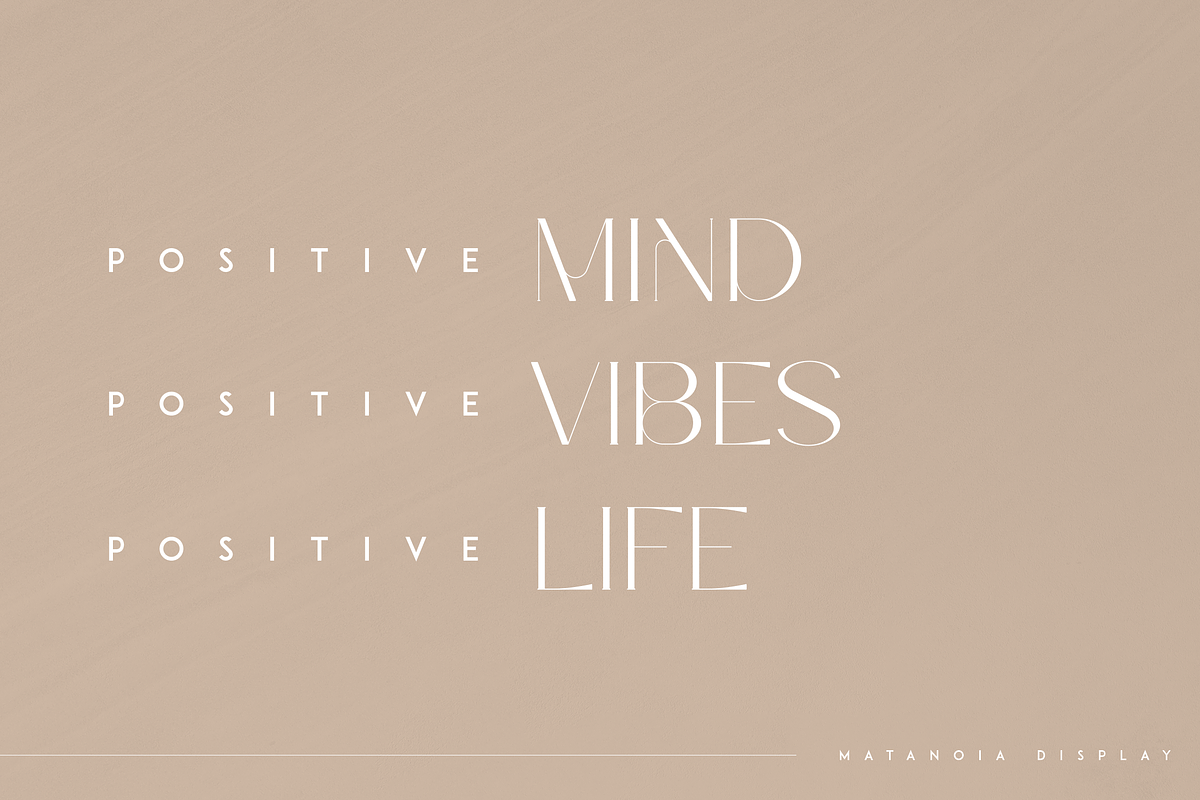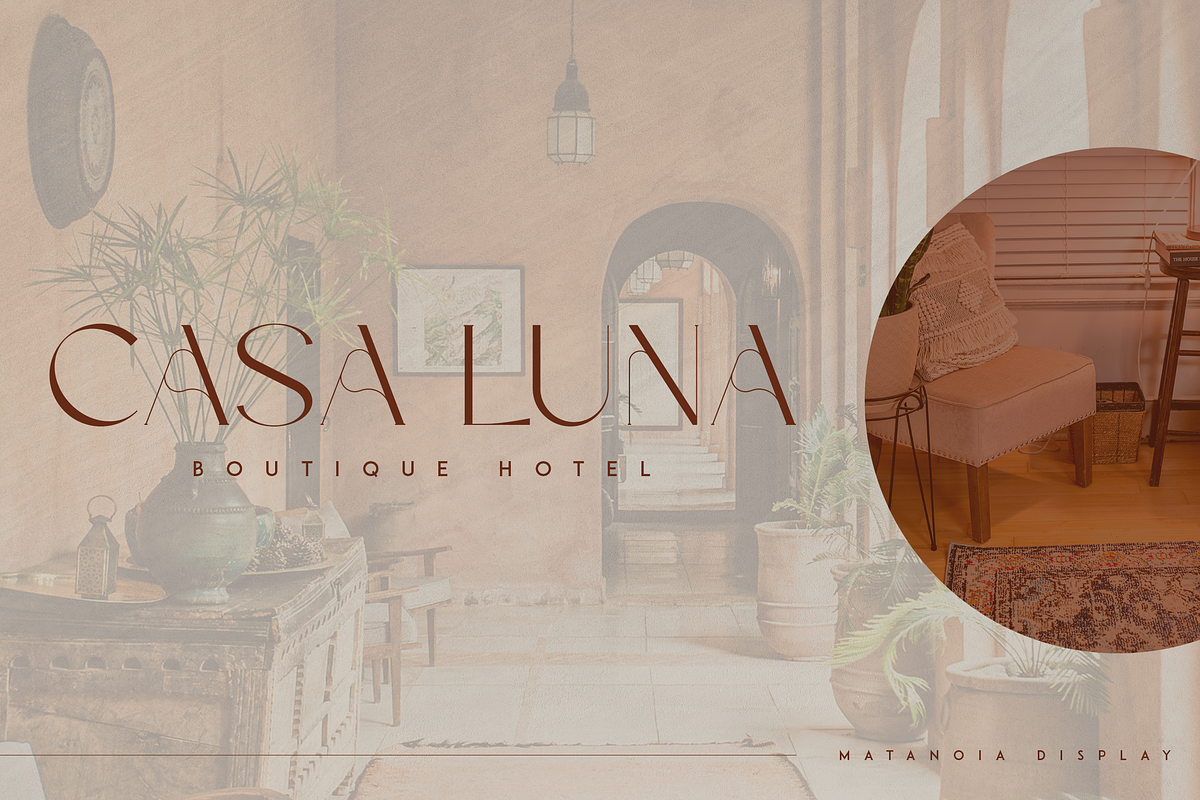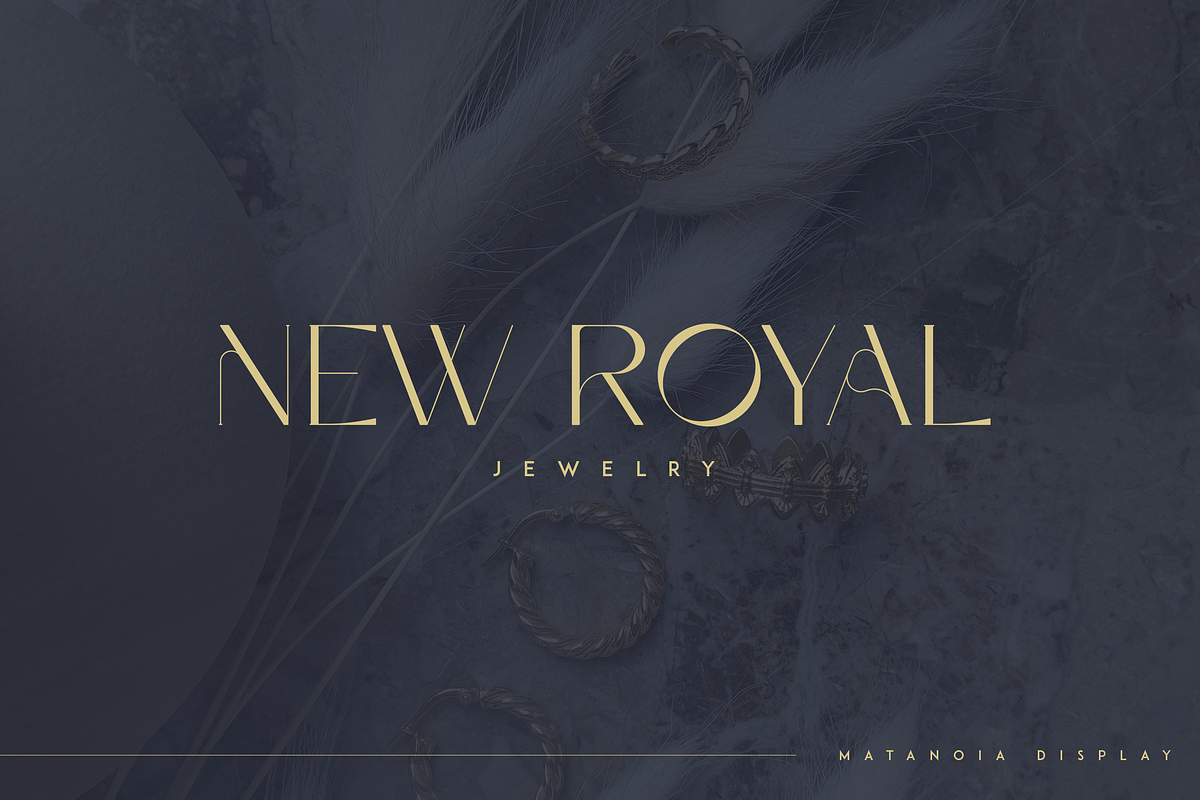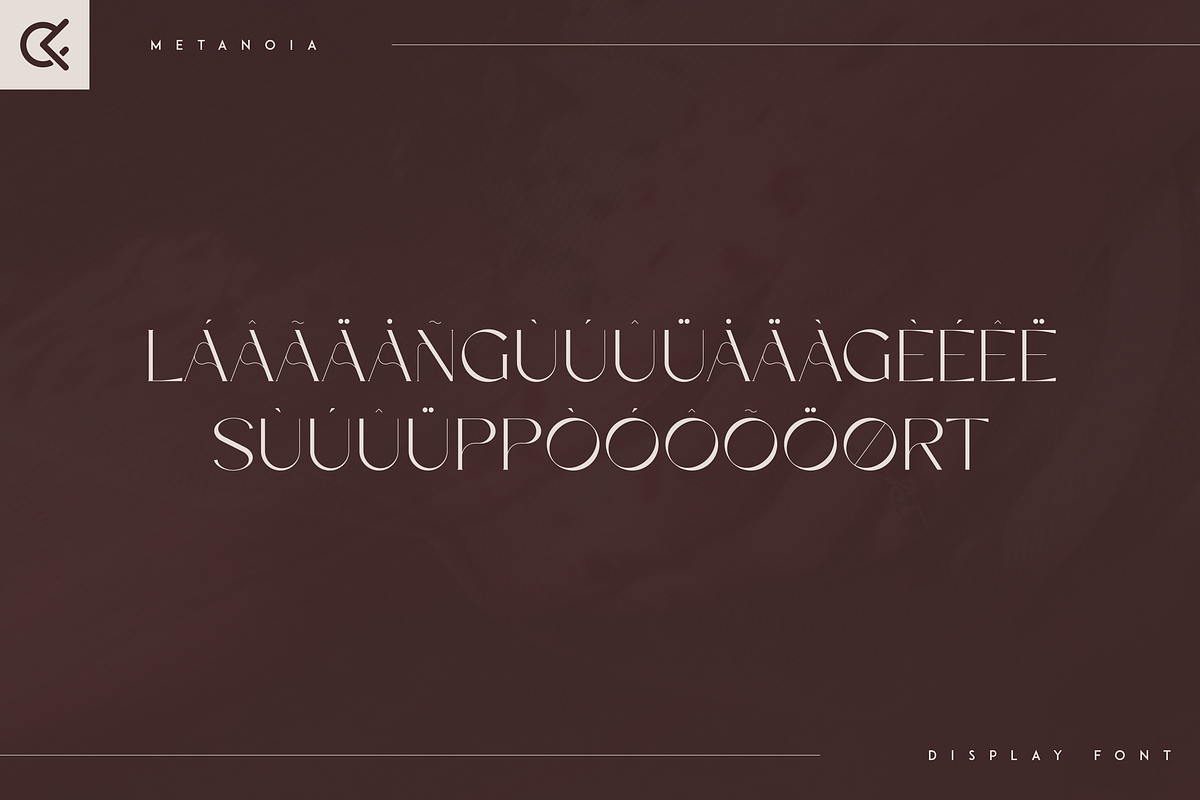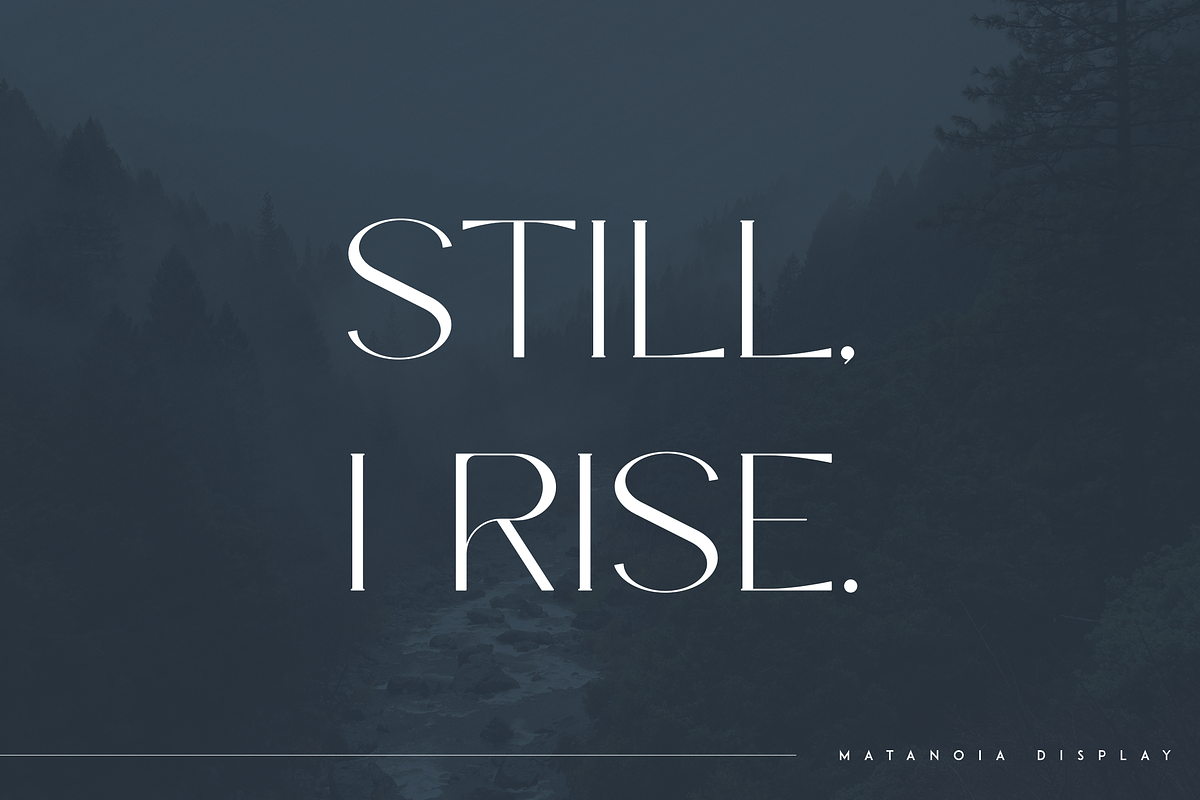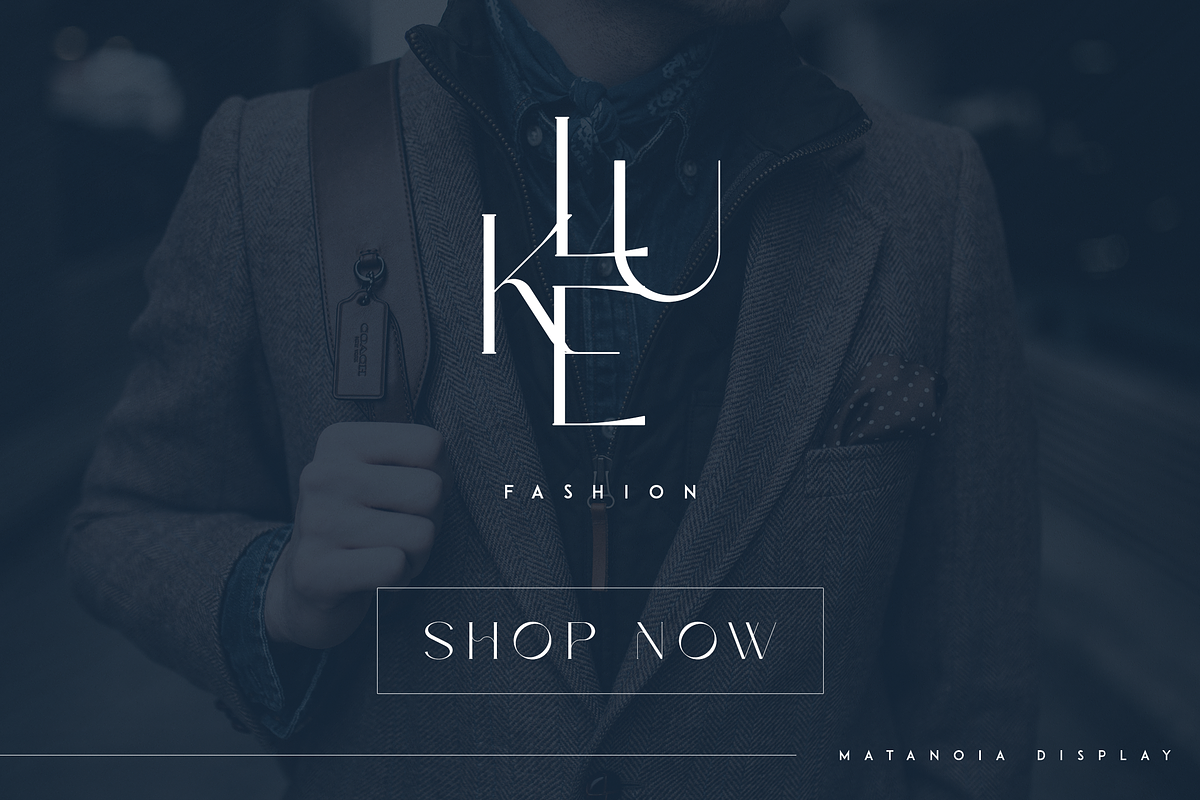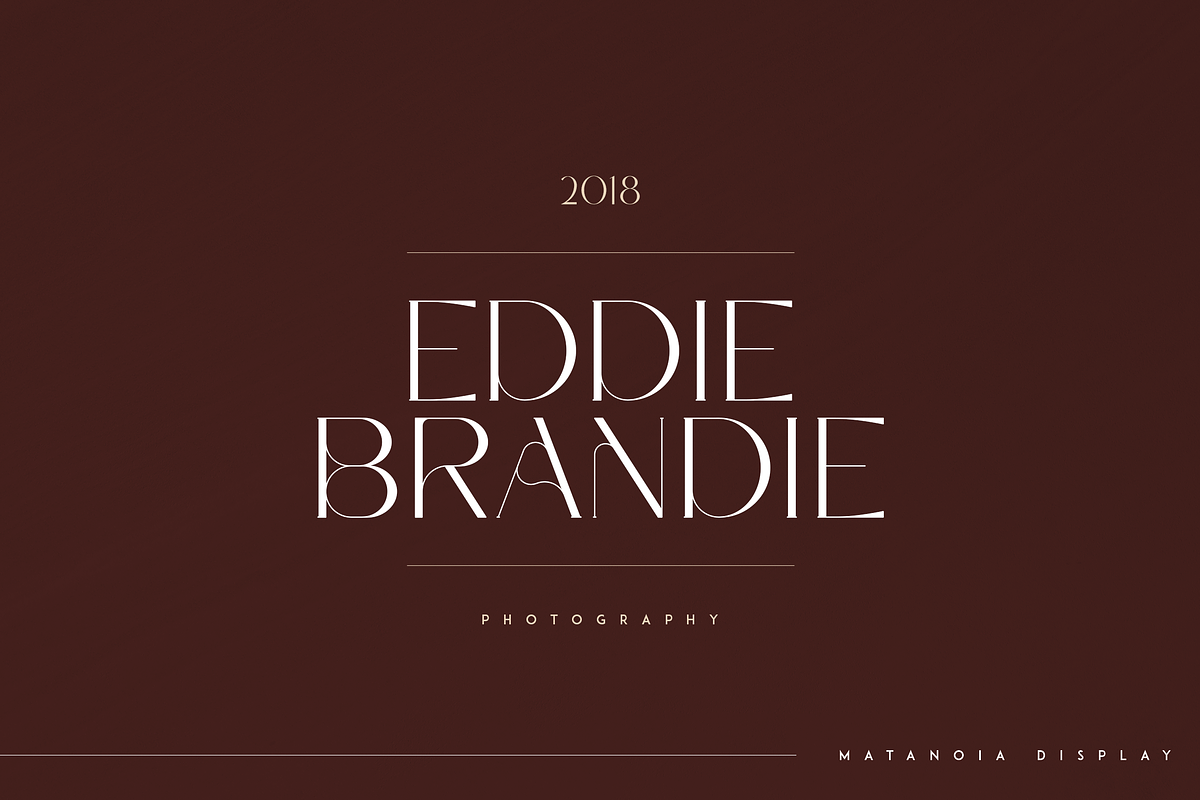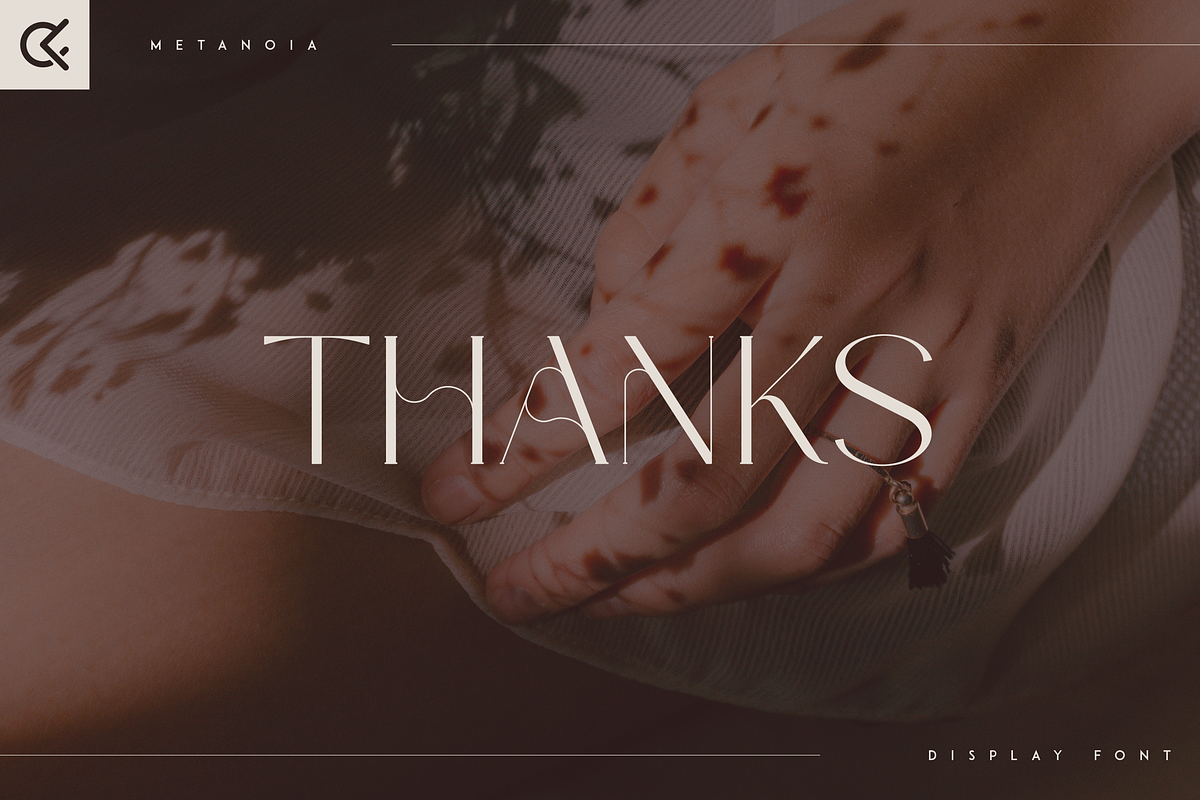
Metanoia - Display Font
Introducing Metanoia - Display font
Metanoia is creative and elegant font with multilingual support. It's a very versatile font that works great in large and small sizes.
This font is perfect for branding projects, home-ware designs, product packaging, magazine headers - or simply as a stylish text overlay to any background image.
- Uppercase, numeral, punctuation & Symbol